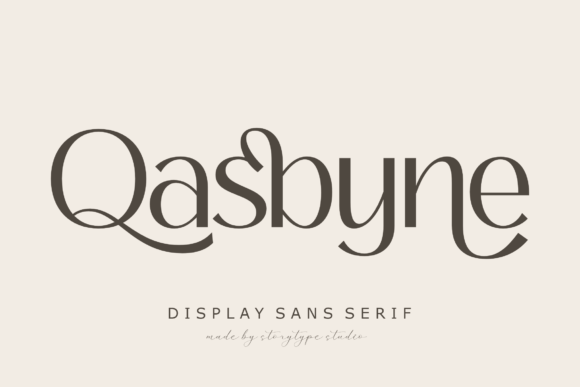
Feast your eyes on Qasbyne, the crème de la crème of sans serif typefaces, meticulously crafted by the maestros at Storytype Studio. Its timeless charm and elegant demeanor will elevate your digital creations to unprecedented heights.
Qasbyne's carefully honed curves and sharp lines dance harmoniously on the page, creating a visual symphony that captures both the eye and the heart. Its versatility knows no bounds, making it the perfect muse for an array of projects, from sophisticated logos that exude luxury to captivating book and movie titles that ignite the imagination.
Step into the realm of fashion and let Qasbyne weave its magic. Its innate grace will adorn your brand with an air of exclusivity, while its effortless style will make your designs stand out from the crowd. Elevate your magazine covers, clothing lines, and lettering with this typographic masterpiece that commands attention and inspires admiration.
But wait, there's more! Qasbyne's brilliance extends beyond its captivating aesthetics. This font is a haven for creativity, offering a treasure trove of glyphs and swashes that unlock endless possibilities for customization. Unleash your imagination and let your designs soar to new heights with Qasbyne, the font that empowers you to create truly extraordinary works of art.